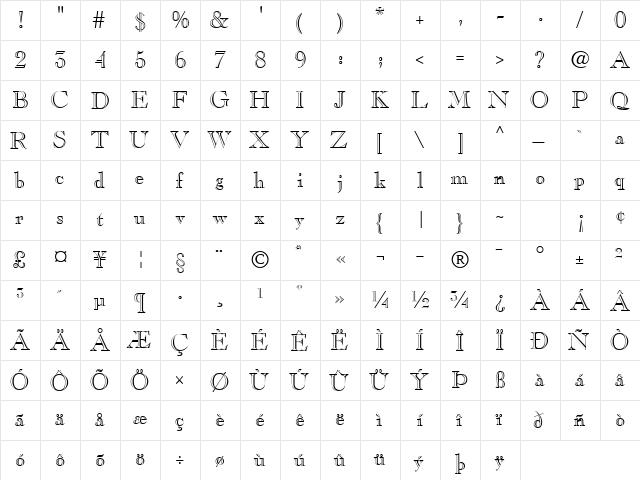
CaslonOpenFaceSSK Regular
Design Context for CaslonOpenFaceSSK Typeface
CaslonOpenFaceSSK takes a measured approach to typography — its balanced proportions and neutral character make it a reliable workhorse for both digital and print work.